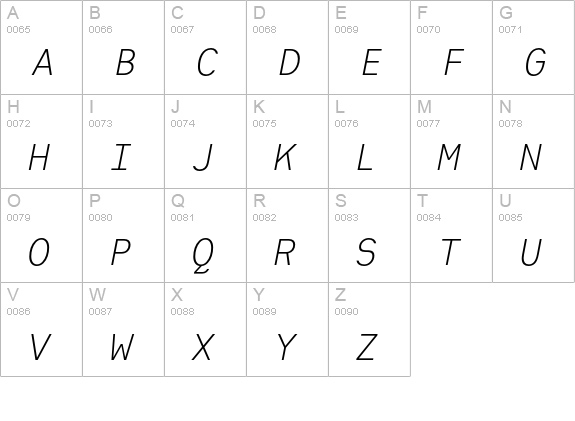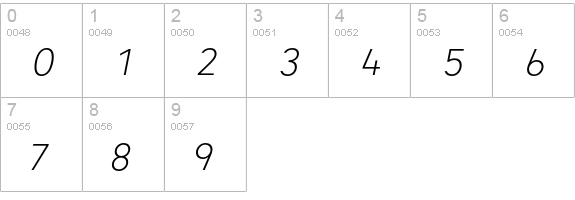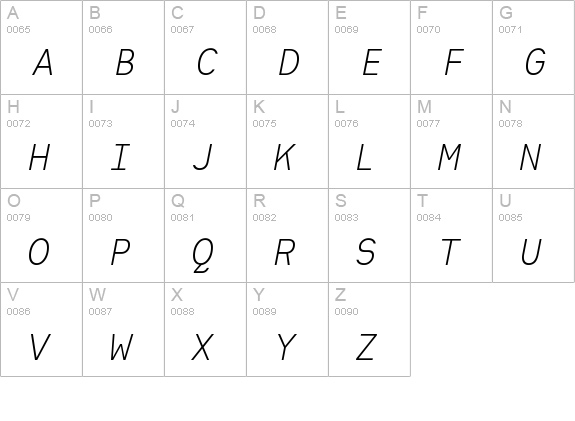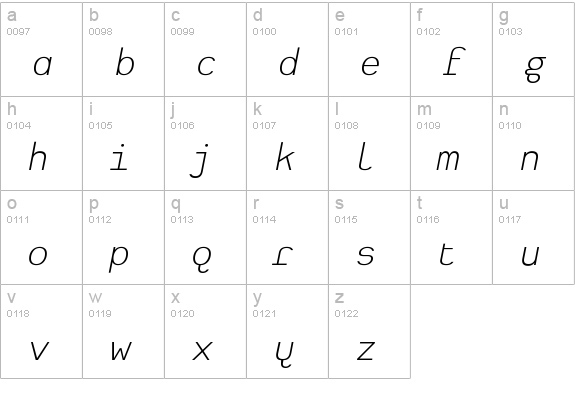
Heimat Mono Light Italic Font Details
Heimat Mono Light Italic is a refined, elegant, italic variant in the Heimat typeface family \xE2\x80\x94 well suited to elegant body text, refined sub-headings, and luxury branding.
Heimat Mono Light Italic font is a sophisticated and elegant typeface that exudes a sense of modernity and style. With its sleek and slender design, this font is perfect for creating a clean and contemporary look in your projects. The italic style adds a touch of flair and sophistication, making it ideal for adding a touch of elegance to any design. What makes Heimat Mono Light Italic font even more appealing is that it is available for free download at FontsMarket.com. This means that you can easily access this versatile and stylish font to enhance your creative projects without any cost. Simply visit FontsMarket.com to download Heimat Mono Light Italic font and elevate your designs with its sleek and modern aesthetic.